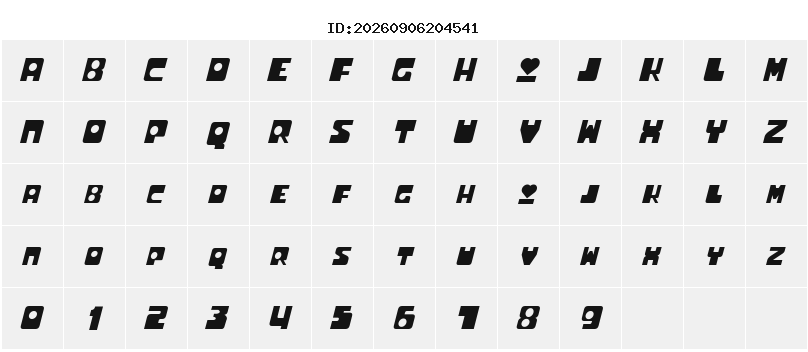
Utonium Preview
• Font Name: Utonium
• Full Font Name: Utonium Italic
• Designer: Neale Davidson
• Manufacturer: Pixel Sagas
About Utonium.otf
Utonium.otf is a modern, elegant sans-serif font designed for ultimate readability and visual harmony. Perfect for branding, headlines, web design, and print materials.